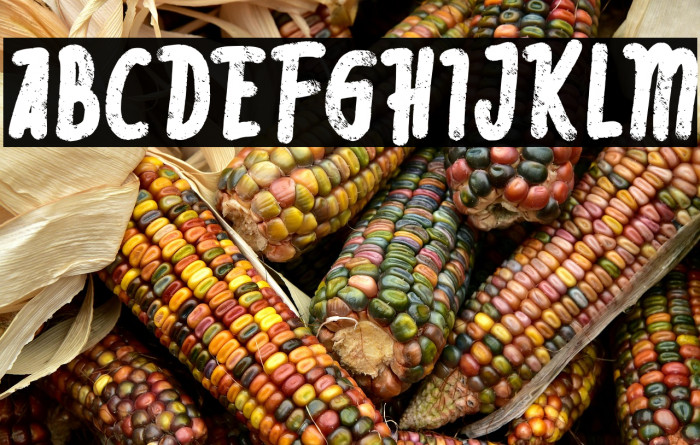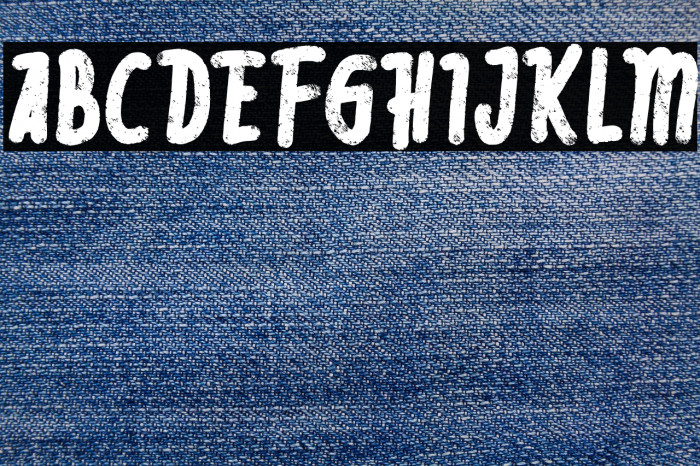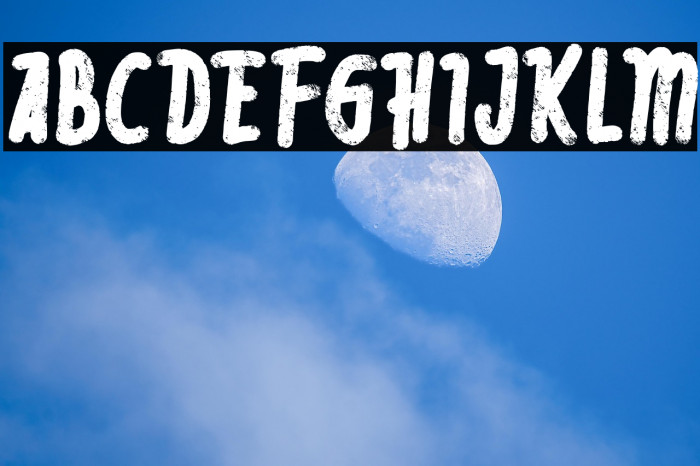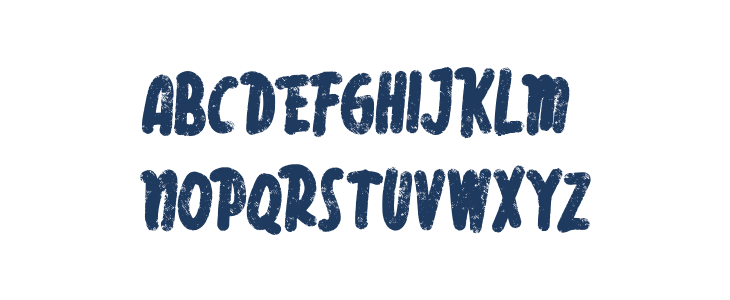
Rebelia FREE Font
Rebelia FREE Description
This font features a bold, distressed style with a textured appearance that gives it a rugged and vintage feel. The uppercase letters are prominent and impactful, making it suitable for attention-grabbing designs. The characters have a consistent width, and the rough edges add a handcrafted touch. The font's unique style is ideal for projects that require a strong, rebellious aesthetic. Its bold nature ensures visibility and readability, even at smaller sizes. The texture within each letter adds depth and character, making it stand out in various design contexts.
| Overall Style | Vintage |
| Proposed Projects | Ideal for posters, album covers, branding, and apparel designs that require a bold statement. |